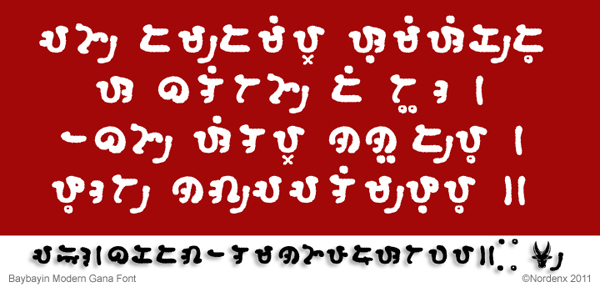
The Script
Baybayin script is an ancient form of writing by native islanders and tribes in the South East Asian archipelago we now know as the Philippines.
The Font
I created true type fonts (TTF) I called "Baybayin Modern" to use in modern art. The fonts are stylized modern composite of many examples from the past but the style is based primarily on my calligraphy work and handwriting. The font is calligraphic & artistic representations and the characters’ shapes, sizes and weights have been made uniform in order to present a neat and elegant printed appearance.
The Style (Gana)
Inspired by Japanese Hiragana and Katakana. The bold blotchy strokes simulates a thick marker pen with slightly fuzzy edges.
The Sample
Tanaga, the Filipino equivalent of a Japanese haiku.
In Philippine literature, a tanaga is a poem consisting of four lines with each line equally having between seven and nine syllables. To compare, the Japanese haiku has 17 phonetic units divided into three phrases of 5, 7 and 5 units respectively.
These short poems do not have any titles, although the apparent theme is used to refer to it. Most are written in Tagalog, the basis of the Filipino national language.
The script sample's theme is "Anger", it reads:
Ang damdami’y sumisikdo
sa balitang di-totoo;
habang sila’y nanunudyo,
poot nag-aalimpuyo.